What schools did you attend?
I completed a degree in Graphic Design and a postgraduate specialization in Type Design at the University of Buenos Aires.
Did you have a teacher, past employer, client, or colleague who was instrumental in your career?
I am especially grateful to three people who taught, encouraged and – above all – stimulated me to improve (and still do) – Darío Muhafara, Alejandro Paul, and Guido Ferreyra. Each one of them changed my way of thinking, doing, and seeing typography.
Did they have any specific advice/words of wisdom that you remember?
I remember when I was a student, Ruben Fontana once told me that when I got older my letters would grow up too. That changed my way of thinking about typography, I started understanding letters as living things that grow, change, modify each other just like whoever draws them. I'm not sure if that was what he meant, but it was a great advice for me.
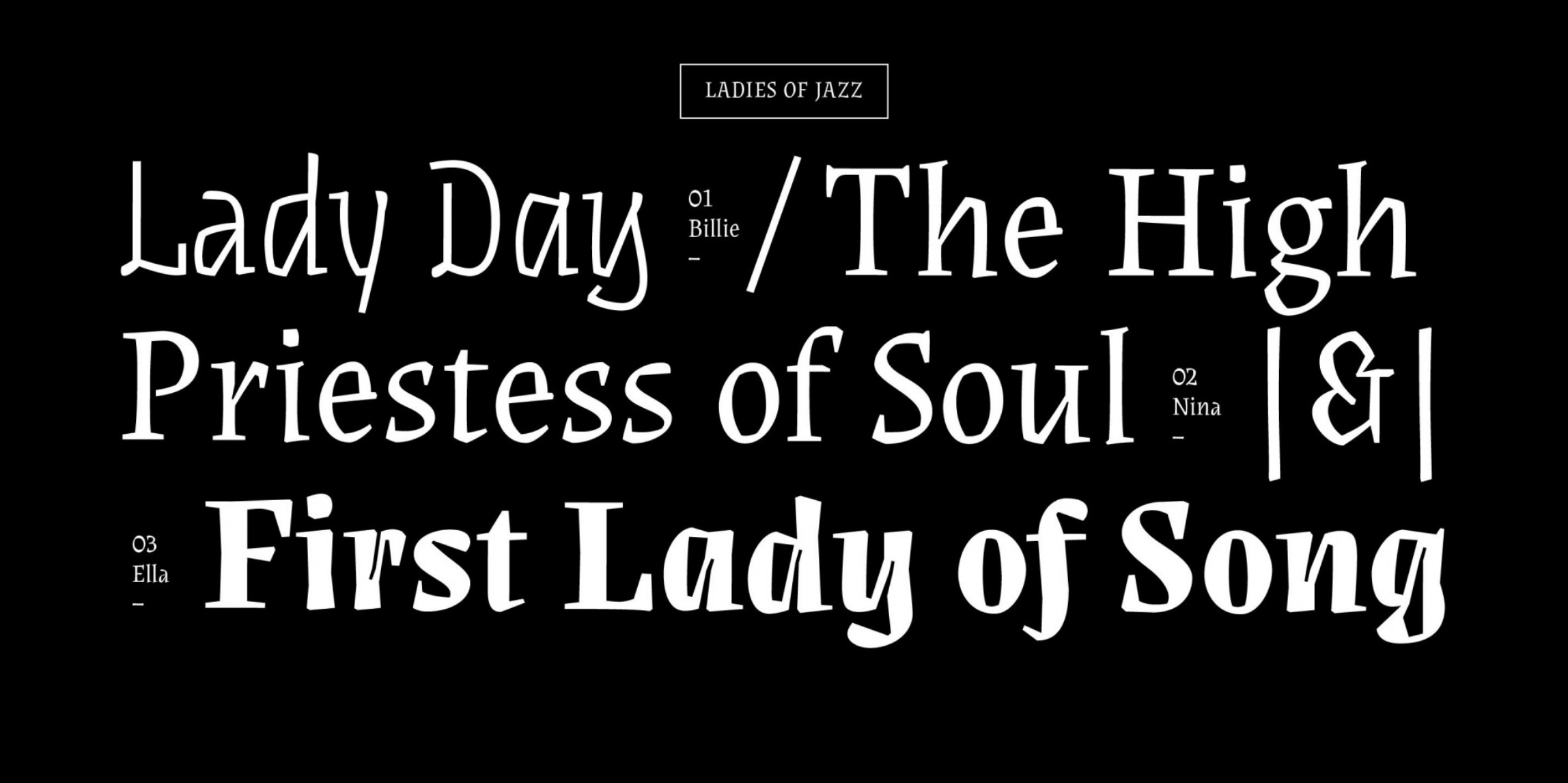
Sincopa type design specimen, inspired by three queens of jazz.
Which of your design projects are your favorites? Why?
I must say, Síncopa. It was my first type design project and I learned so much, but it also made me cry a lot. The whole process took several years of crisis and doubts, but it made me grow and realize that I really love to do this.
Where do you work now? In a studio, independent, other? What’s a typical workday like?
I work as independent graphic and type designer. My typical work day is an endless successions of lists (hahaha!). Every morning I make a list of what I need to do during the day, separating it into columns by work, administrative tasks, and other stuff – reminders just because I love to cross out things. It makes me feel like I’m moving forward.
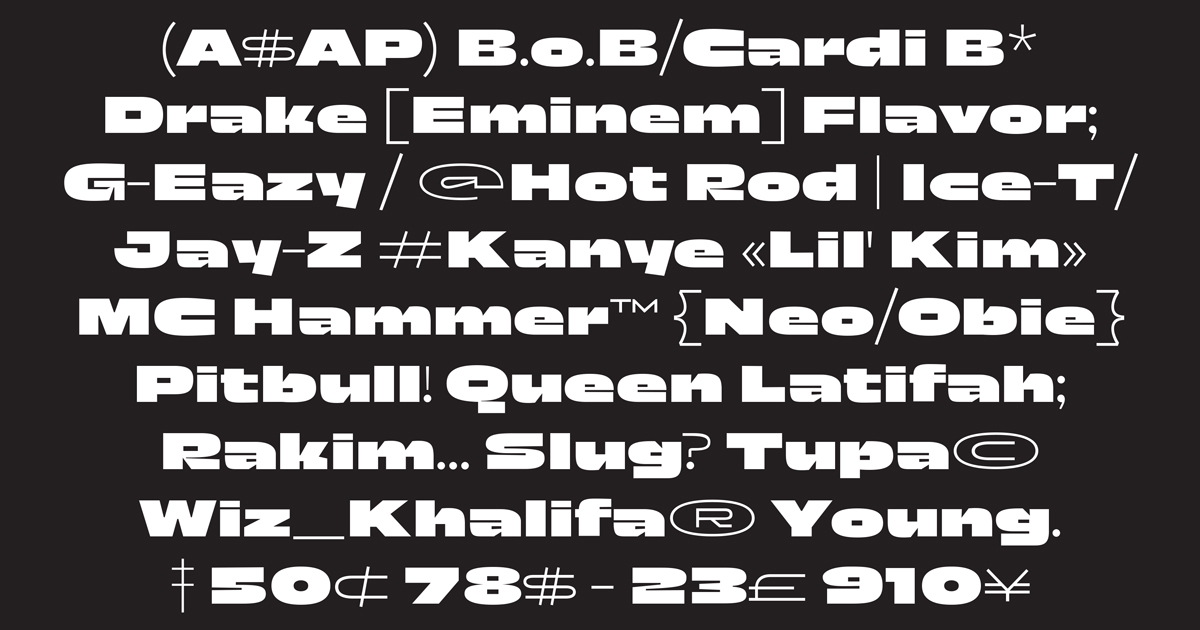
Gabriella type design specimen.
What are your hobbies besides typography or design?
I love to drink wine, eat cheese, and dance. I don't know if any of that applies as hobbies, but it’s a great way of living.
Do you know any of the other Ascenders personally? If yes, whom ?
No one from this year. But I know, admire, and love Guille Vizzari, who won last year. We have a long history and unintentionally, it was Guille who gave me the news that I was one of the Ascenders 2019, and that was an amazing twist.
Do you have any favorite designers and/or artists? Who are they?
I have many people that I admire, especially type designers. But in a short – very short – list I must say that favorites are Oldrich Menhart, W.A. Dwiggins, and Vojtech Preissig.
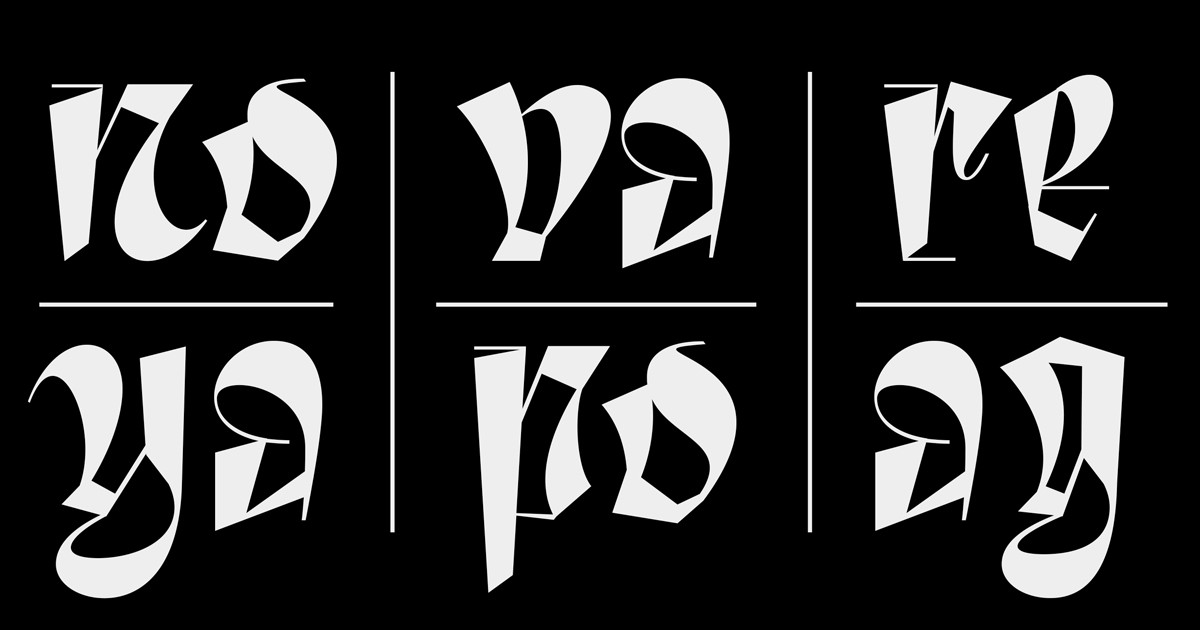
Type design specimen.
Do you think you have a design philosophy or methodology? If yes or no what is it?
I’m not sure, but a quote that I said a lot is “fake it ‘til you make it”. It does not mean to cheat or lie in what you do. For me it's about wanting something so much that you have to convince yourself to do it despite anything and work really hard until you get there.
Now that you have had some time to think about it, what does the award mean to you?
I think that it serves as an impulse to continue doing, learning, and improving. And it is an honor to be among so many people who do wonderful things. It is a great incentive to continue working hard on what I really enjoy doing.